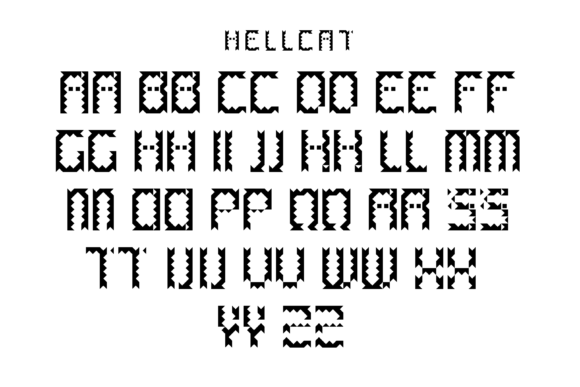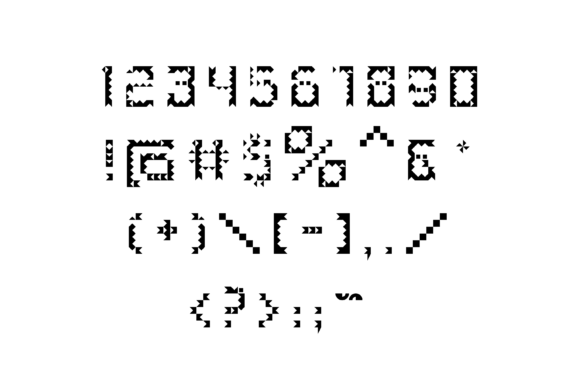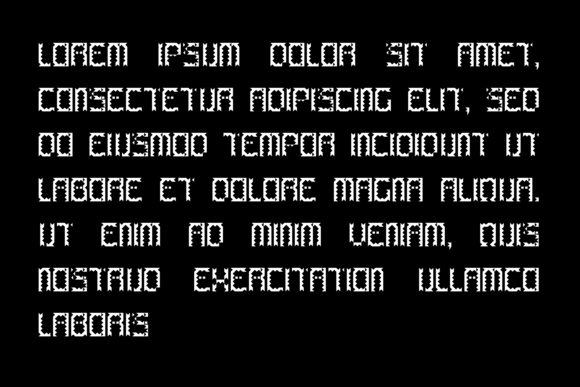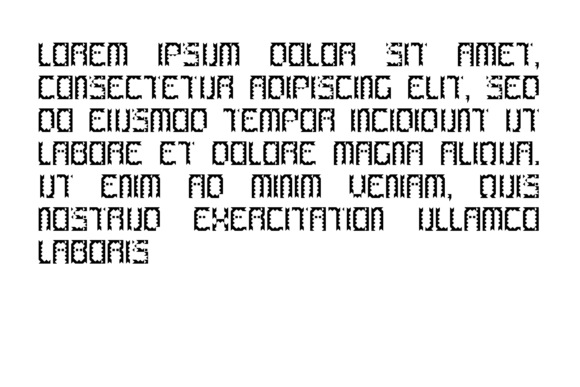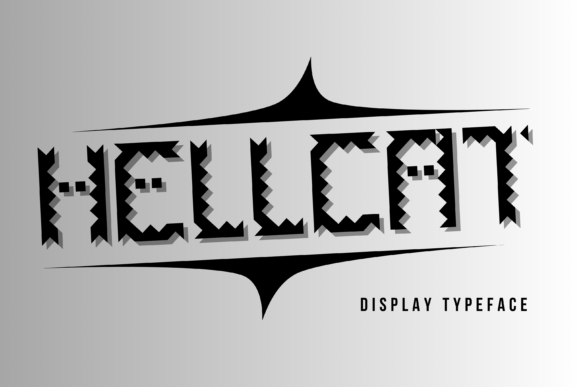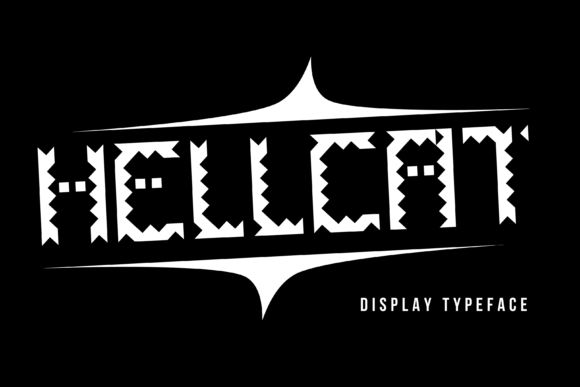
Hellcat Font: Unleash Your Creativity with a Purrfectly Sleek Typeface
In the world of typography, fonts play a crucial role in conveying the tone and personality of a brand or design. For designers and crafters looking to add a touch of modern sophistication and whimsy to their projects, the Hellcat font is an excellent choice. This sleek and contemporary typeface combines the best of both worlds – modern design and feline charm – making it a purrfect addition to your creative arsenal.
The Inspiration Behind Hellcat Font
The Hellcat font is inspired by the mysterious and agile nature of cats. Its design incorporates subtle cat-inspired motifs in its letters, adding a touch of mystique to any project. The font’s creator aimed to capture the essence of feline elegance and translate it into a typographic form that is both stylish and edgy.
Key Features of Hellcat Font
- Modern Design: Hellcat font boasts a sleek and contemporary design that is perfect for projects that require a fresh and modern look.
- Feline Charm: The font’s subtle cat-inspired motifs add a touch of whimsy and personality to your designs.
- Versatility: Hellcat font is suitable for a wide range of projects, from edgy posters and stylish invitations to captivating branding and packaging.
- High-Quality Typography: The font is designed with attention to detail, ensuring that it is legible and visually appealing in various sizes and resolutions.
Uses of Hellcat Font
The Hellcat font is an incredibly versatile typeface that can be used in various design projects. Here are some ideas to get you started:
- Posters and Flyers: Add a touch of edginess to your posters and flyers with the Hellcat font, making them stand out from the crowd.
- Invitations and Cards: Create stylish and sophisticated invitations and cards for special occasions, such as weddings, birthdays, and anniversaries.
- Branding and Logo Design: Use the Hellcat font to create a unique and memorable brand identity that reflects your company’s personality and values.
- Packaging and Product Design: Add a touch of modern sophistication to your product packaging and design with the Hellcat font.
Tips for Using Hellcat Font
To get the most out of the Hellcat font, here are some tips to keep in mind:
- Experiment with Font Sizes: The Hellcat font is designed to be legible in various sizes, so don’t be afraid to experiment with different font sizes to find the perfect fit for your project.
- Pair with Other Fonts: Combine the Hellcat font with other fonts to create a unique and visually appealing typography scheme.
- Play with Colors: The Hellcat font looks great in a variety of colors, so don’t be afraid to experiment with different color schemes to find the perfect match for your project.
In conclusion, the Hellcat font is a sleek and contemporary typeface that combines modern design with feline charm. Its versatility, high-quality typography, and unique design make it an excellent choice for designers and crafters looking to add a touch of sophistication and whimsy to their projects. Whether you’re working on edgy posters, stylish invitations, or captivating branding, the Hellcat font is sure to bring a purrfectly sophisticated flair to your creative projects.